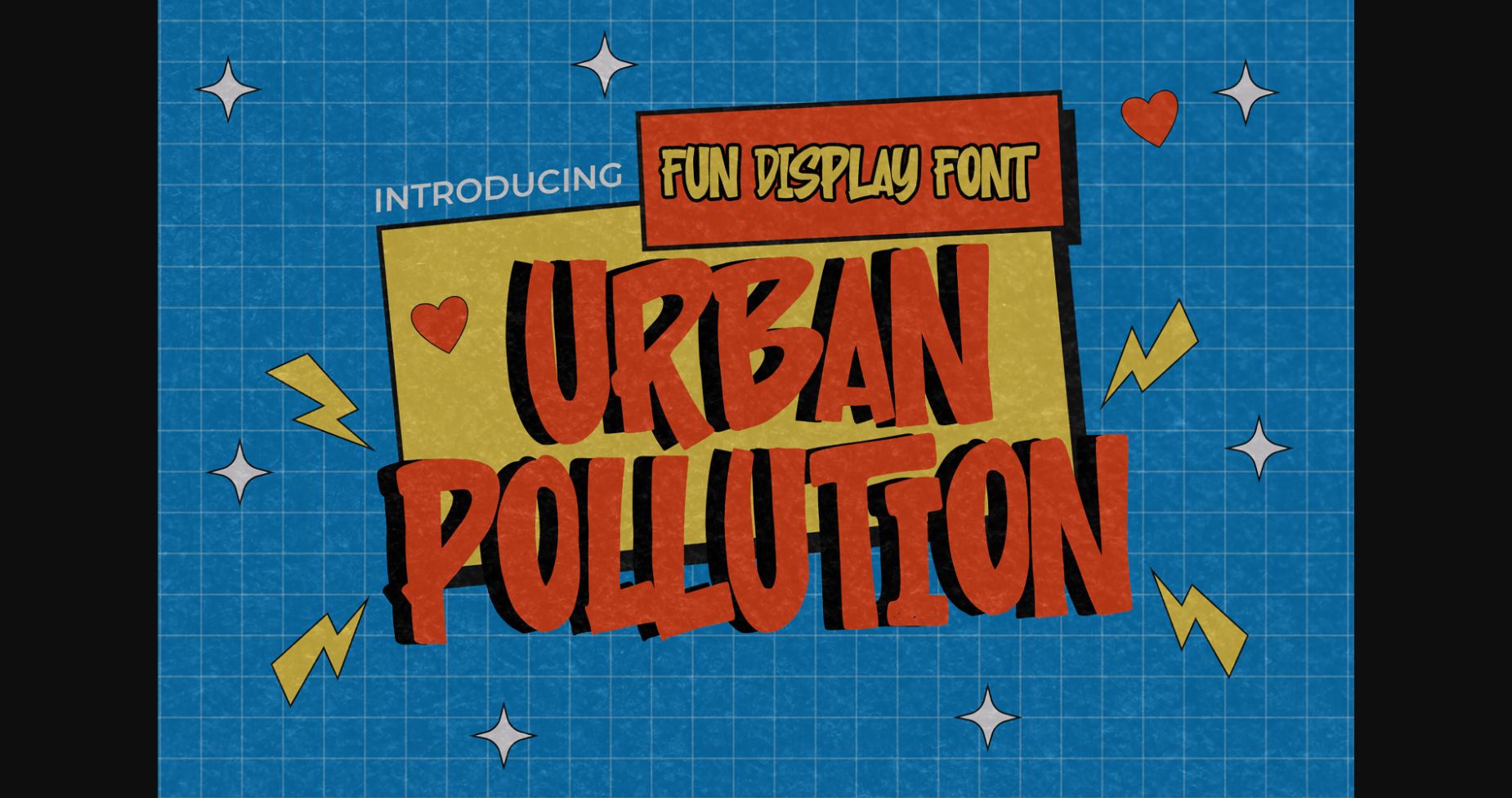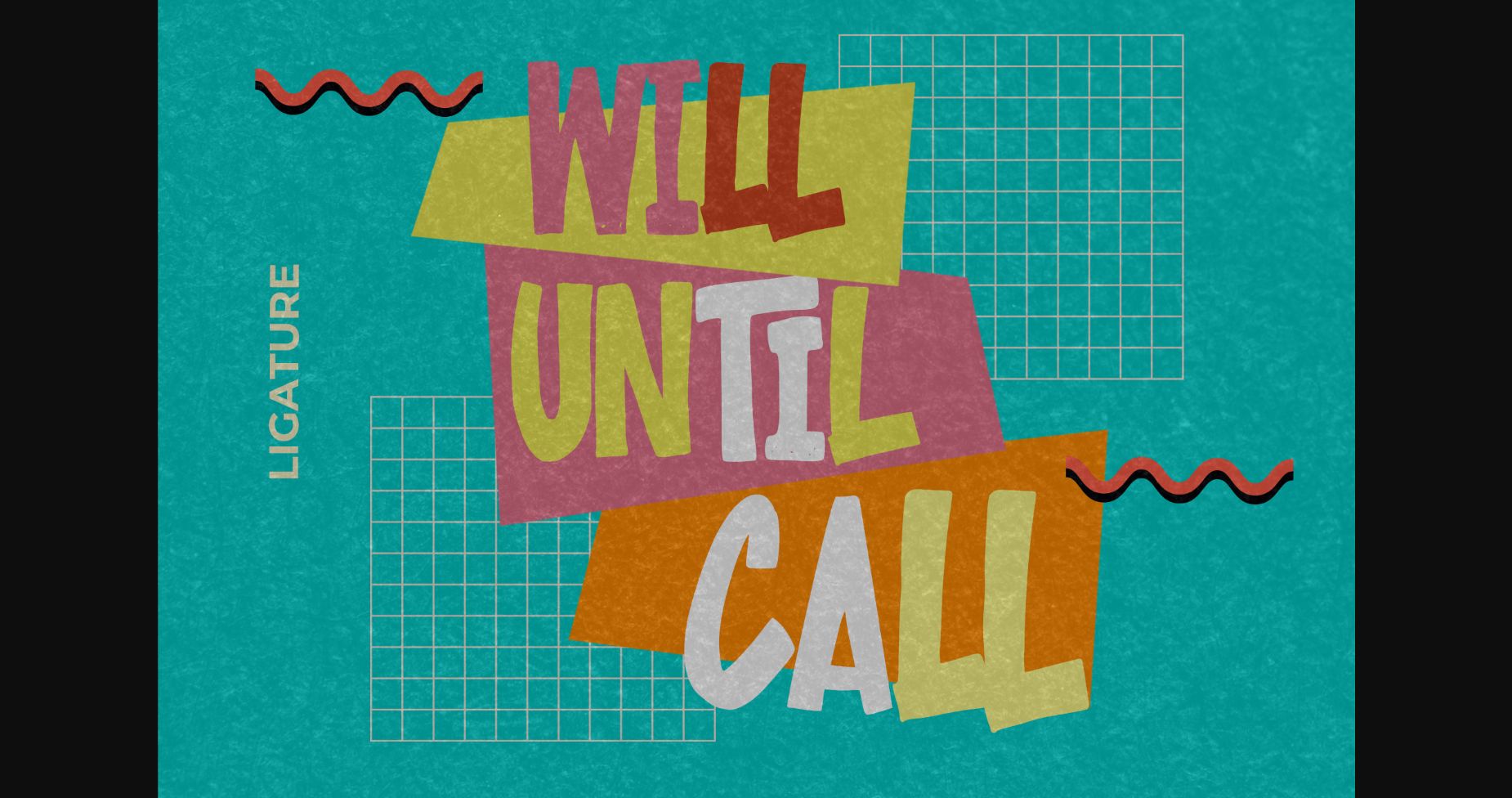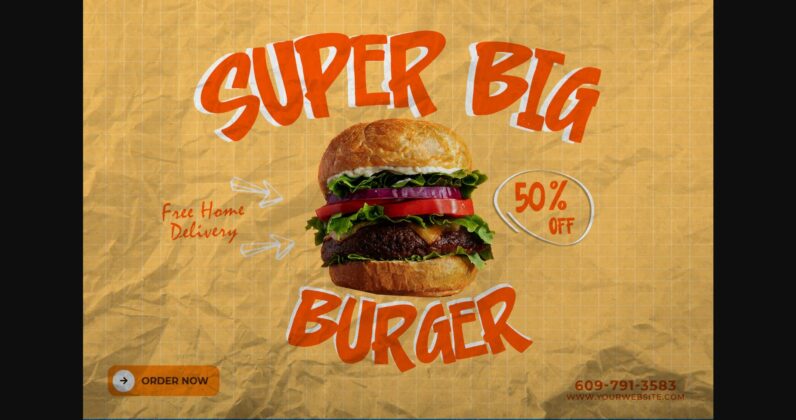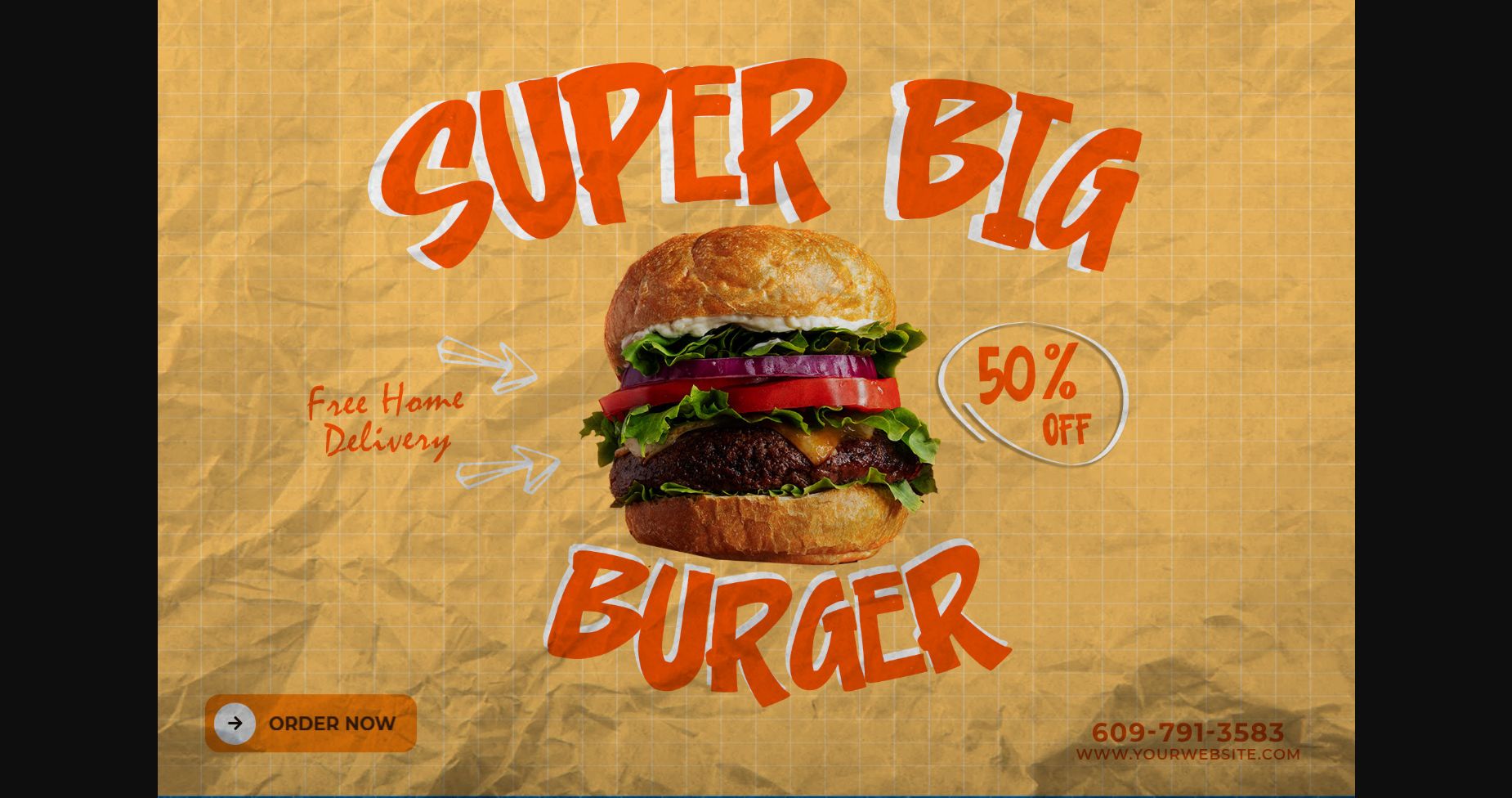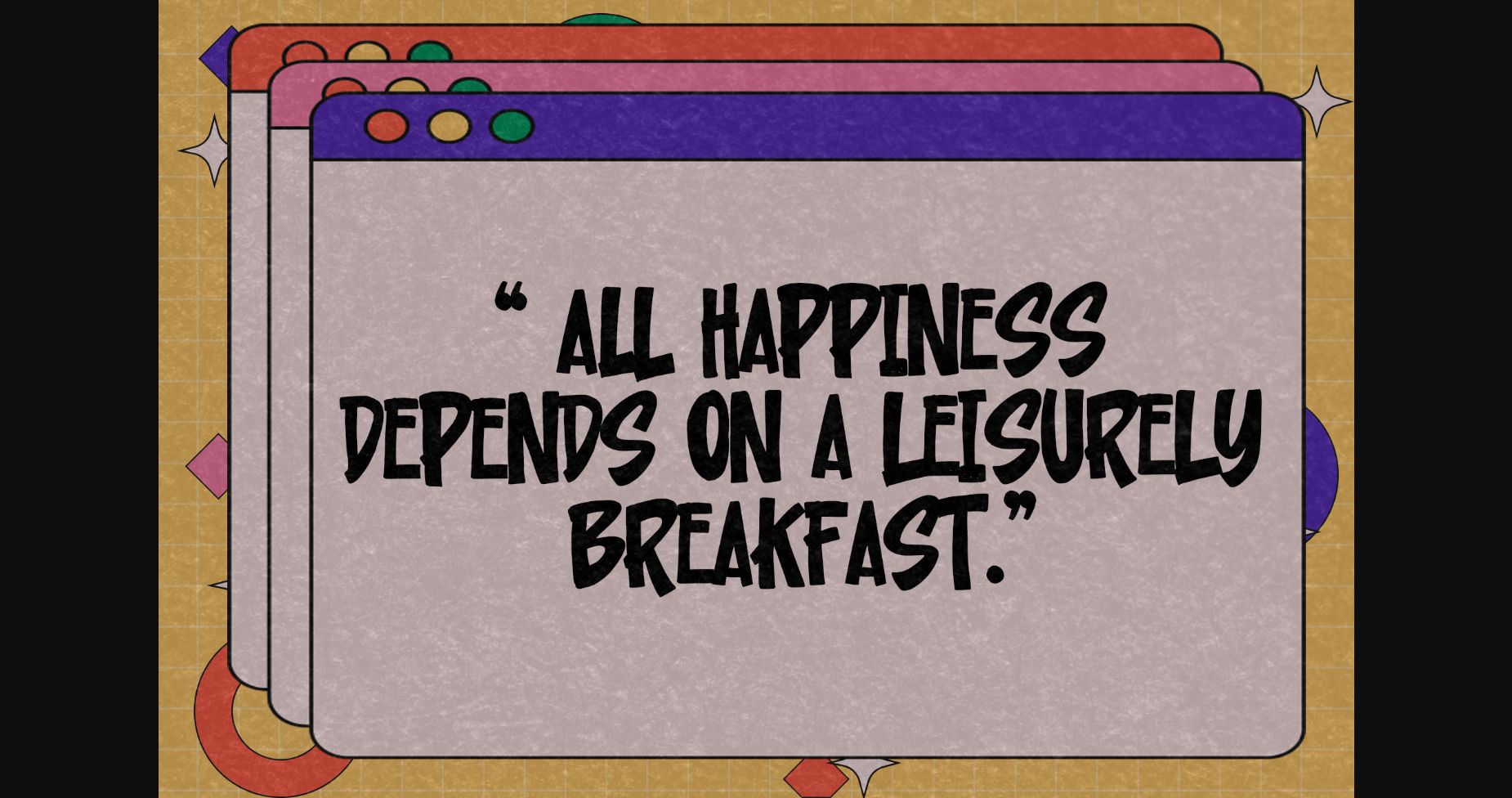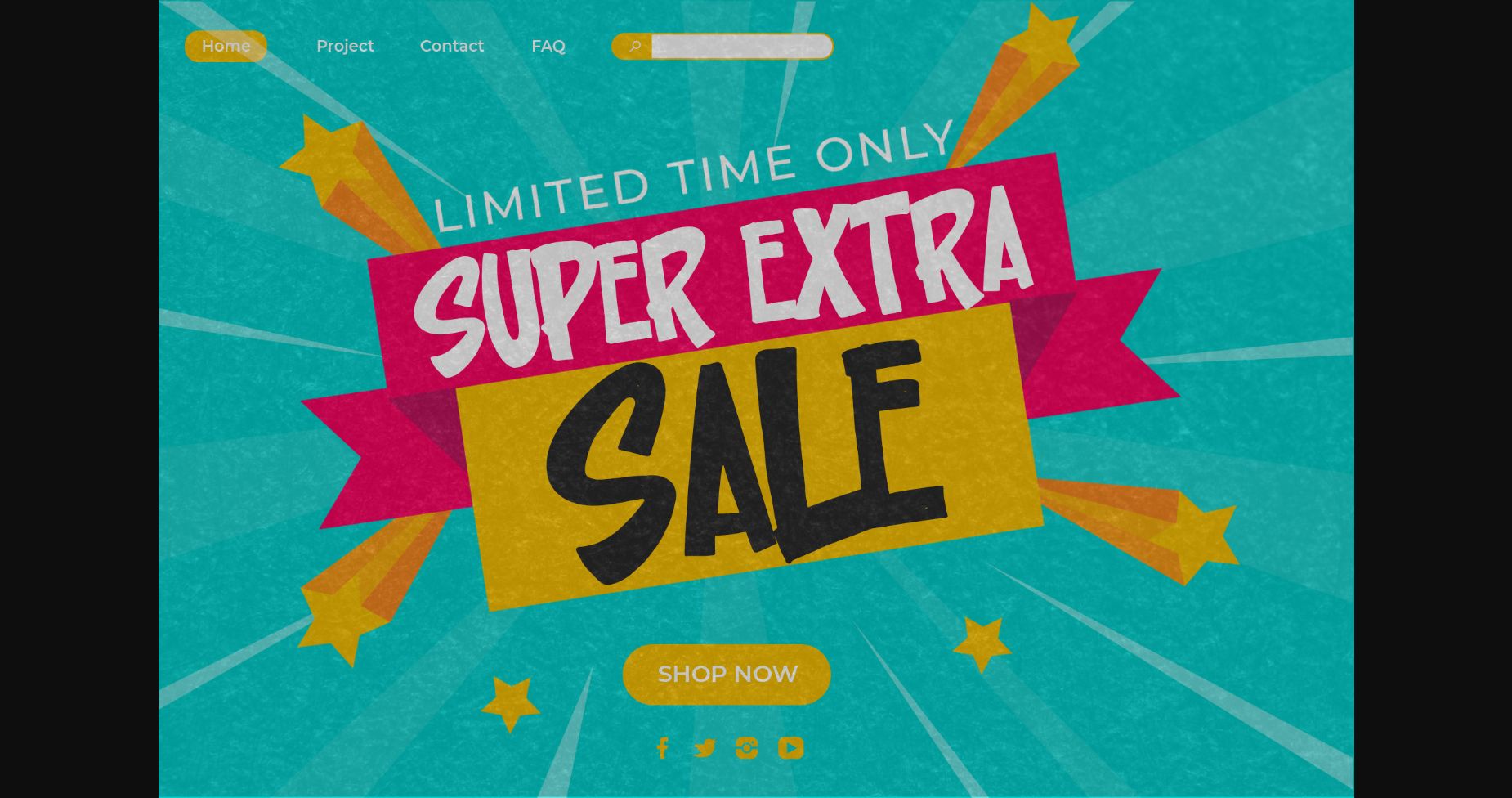
Urban Pollution Font
About Urban Pollution Font
Urban Pollution is a cool, playful and retro styled display font. It is suitable for designs such as t-shirts, sportswear, logos, advertisements, clothing, and more.